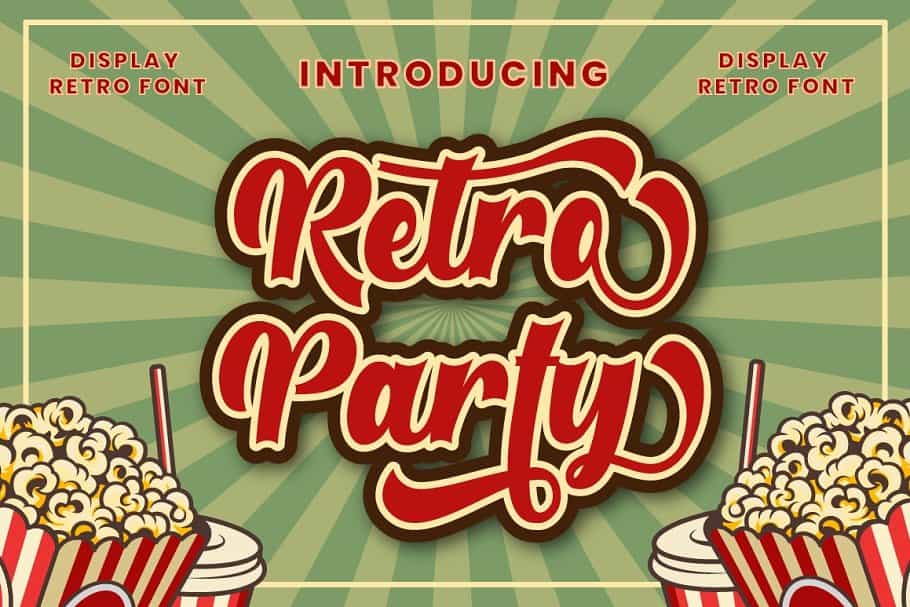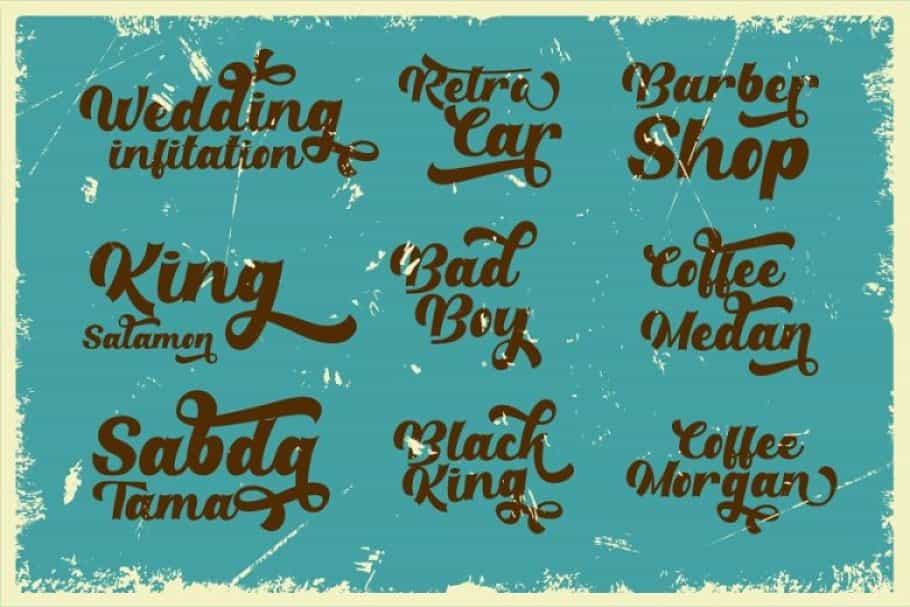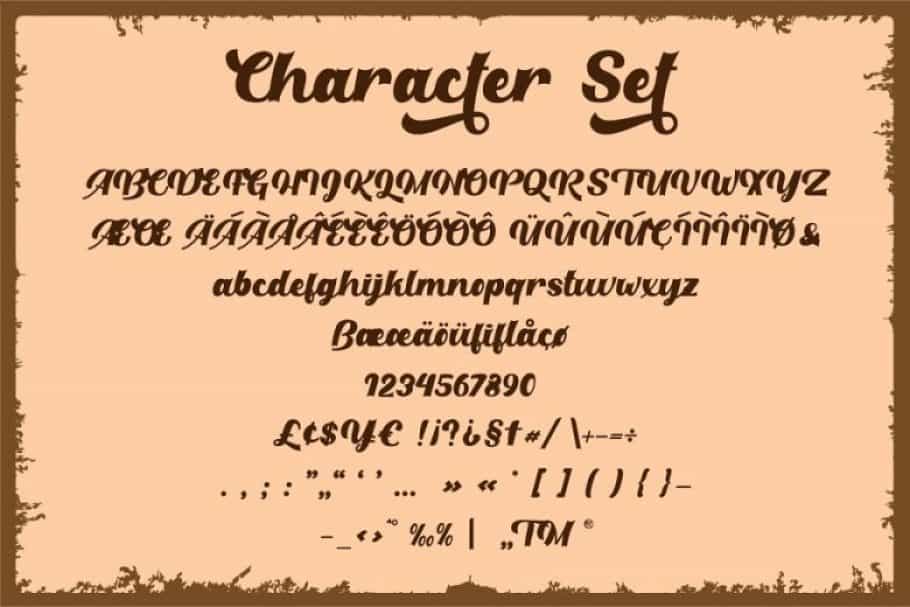
Retro Party Font – Best for uses as display, retro, and script font! When I create it I wanted to incorporate some old school and modern style to give it the vintage look. Well, here it is I hope you like it as much as I do it was inspired by some vintage fonts that I did before.